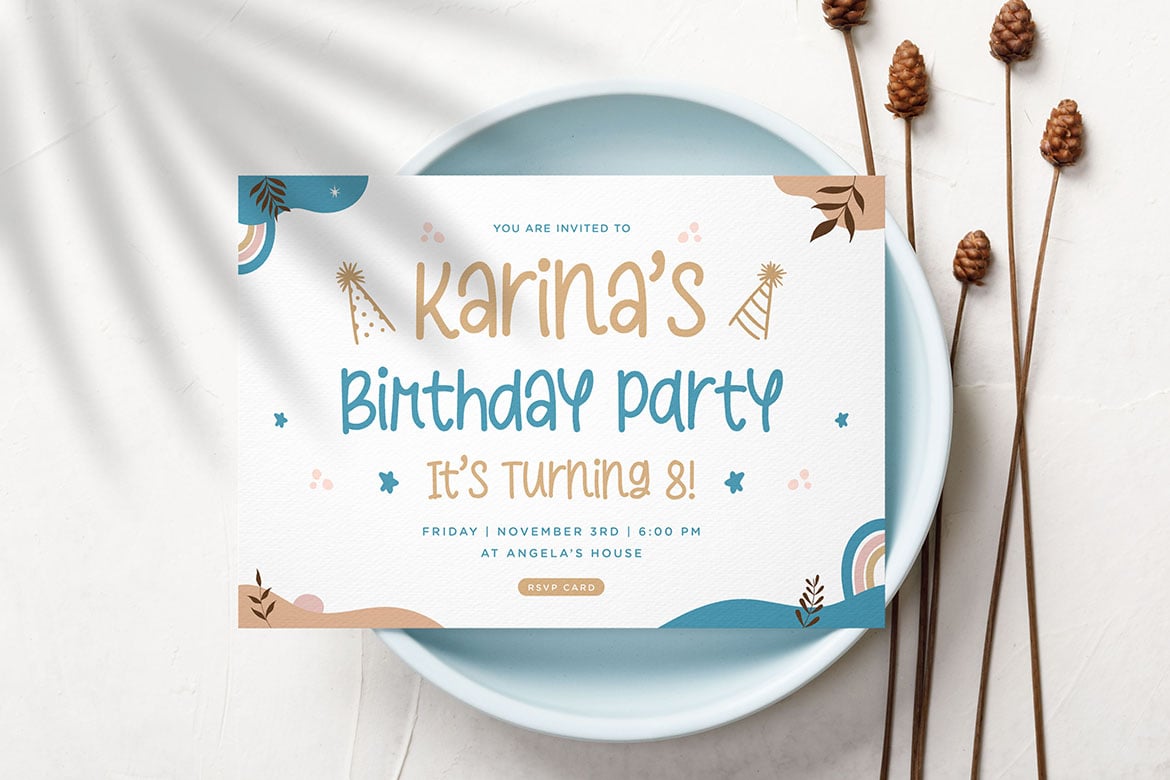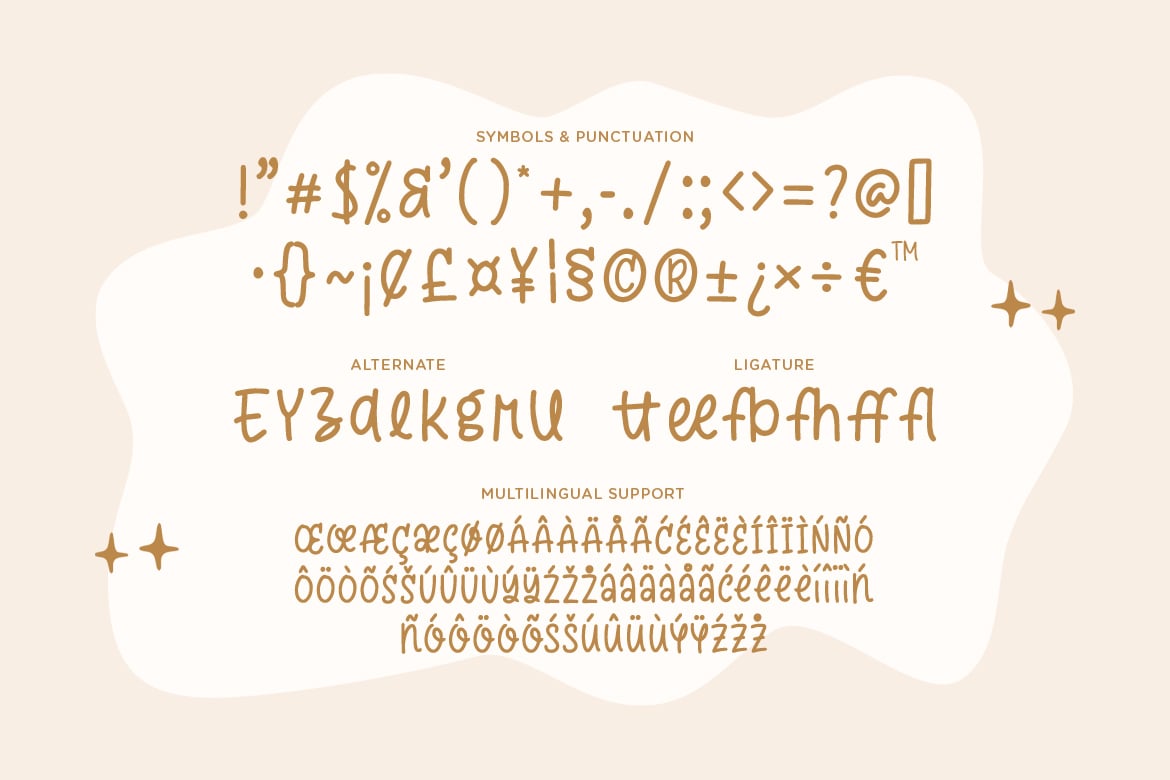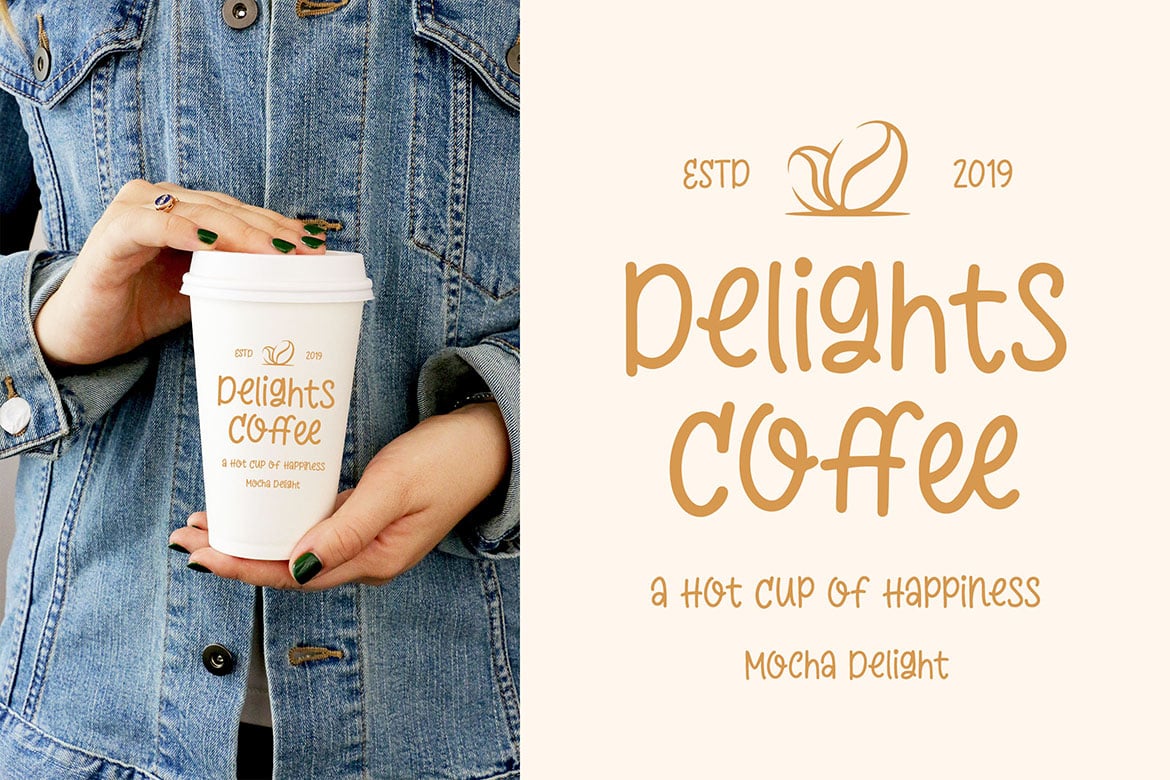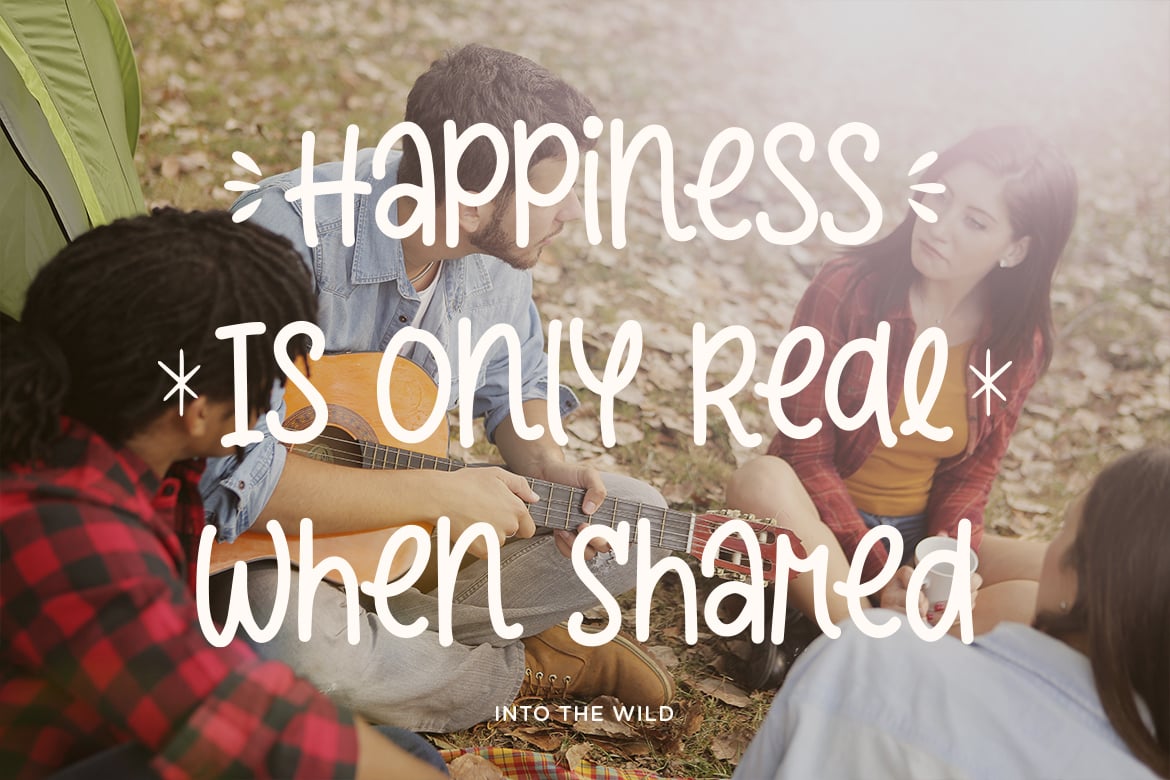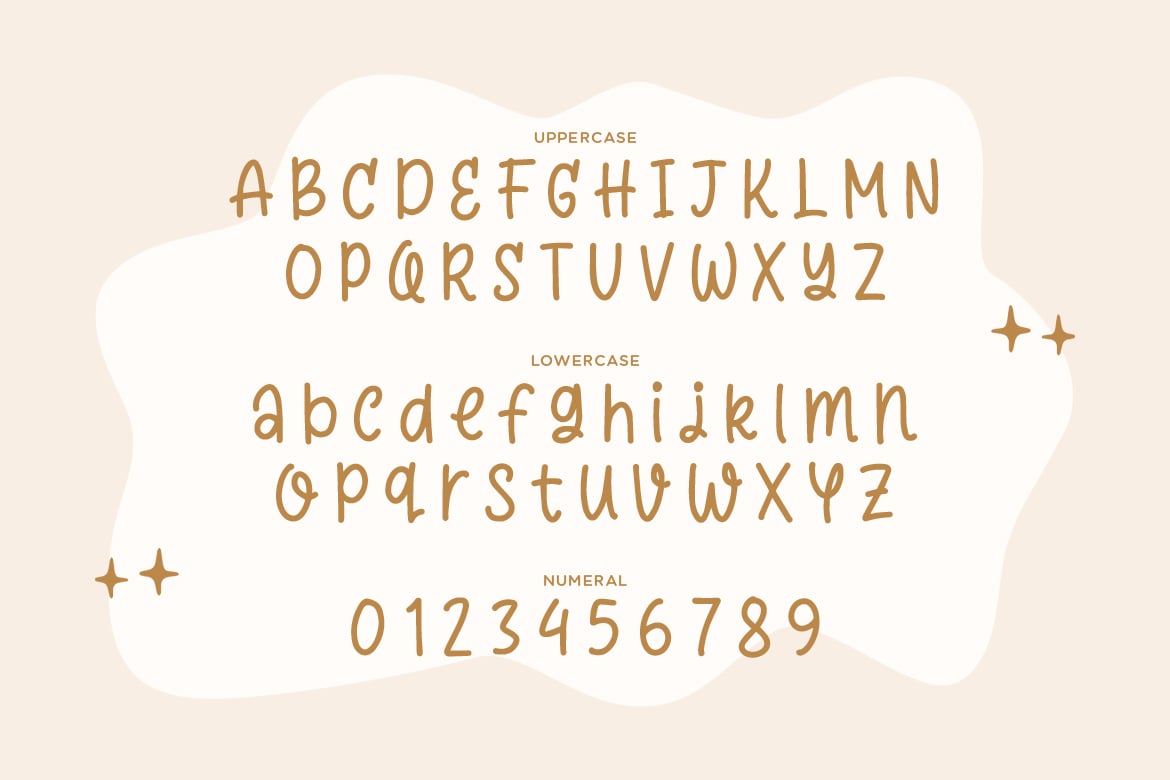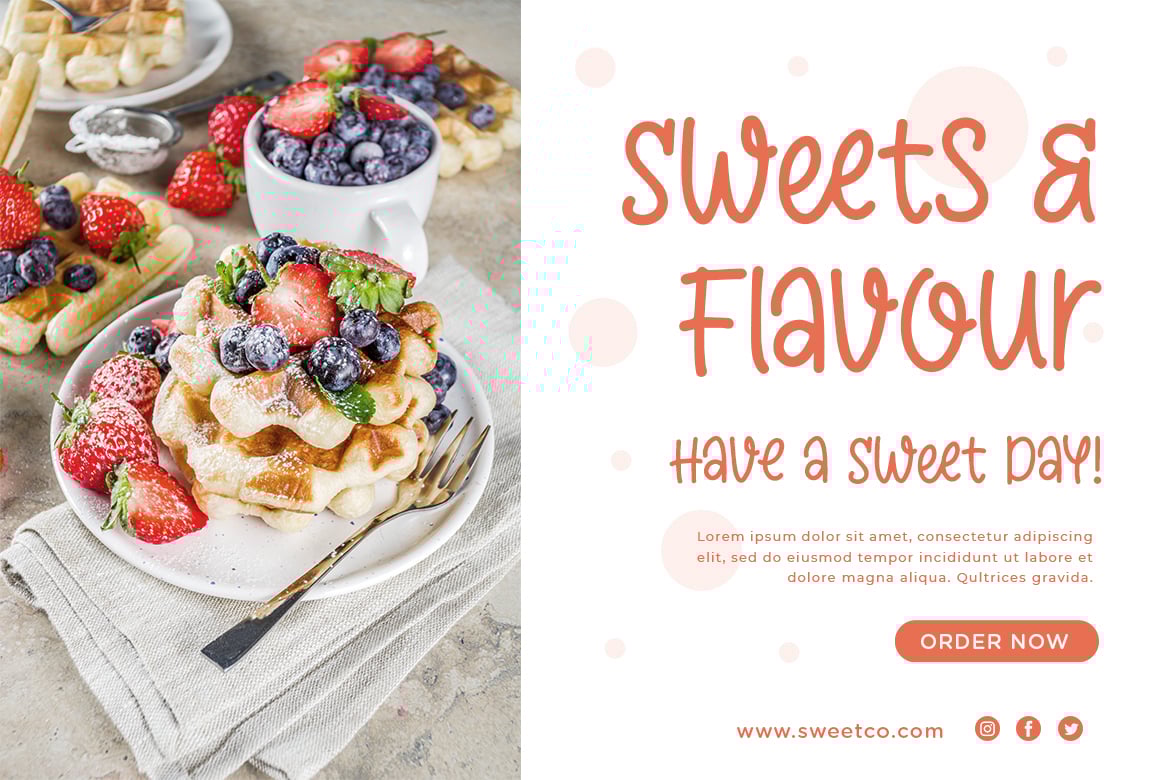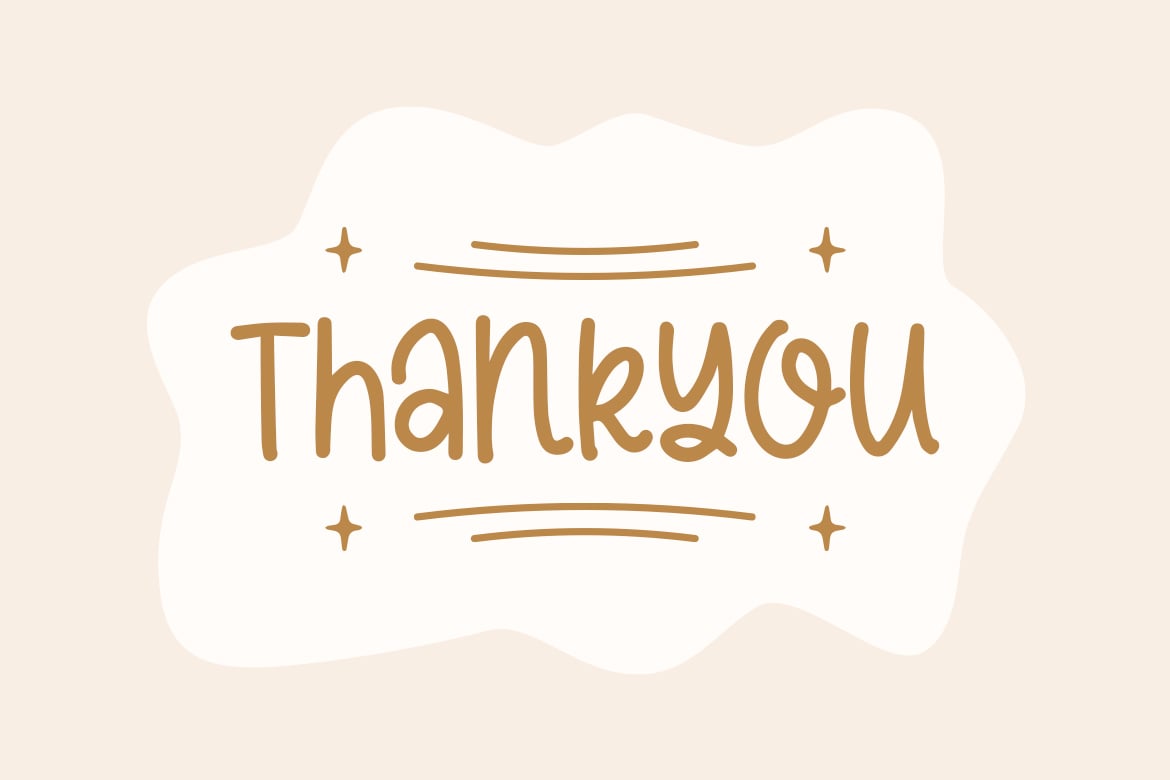
Questar – A Hand Drawn Typeface
Embark on a creative journey with “Questar” – a hand-drawn typeface that adds an artistic touch to your designs!
With its organic and unique letterforms, “Questar” captures the charm of hand-drawn typography. Each character is meticulously crafted to bring a sense of authenticity and creativity, making it perfect for artistic logos, handmade invitations, whimsical posters, and more.
Embrace the artistic flair of “Questar” as it adds a touch of warmth to your projects. Whether you’re creating artistic branding, dreamy illustrations, personalized stationery, or creative social media posts, this typeface will captivate your audience with its handcrafted and expressive style.
Embark on your design quest with “Questar” and let your creativity flourish!